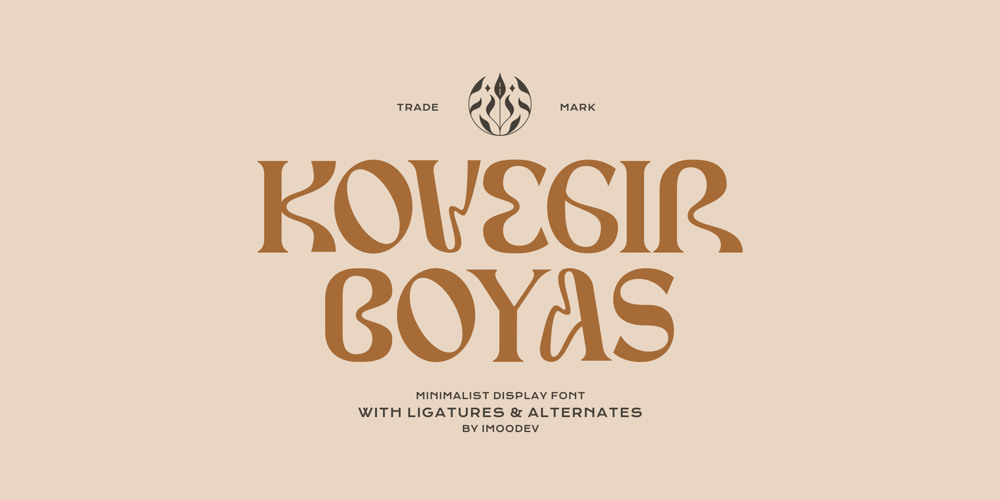
Kovegir Boyas Font Family was designed by Aulia Savira Putri and published by Imoodev. Kovegir Boyas contains 1 styles and family package options. Kovegir Boyas is a modern cursive font with visual elegance, smooth curves, and beautiful ligatures clear, making your work look true and attractive.A versatile font that works in both large and small sizes. This font is suitable for a wide variety of projects such as invitations, logos, branding, magazine, photography, card, product packaging, mugs, quotes, poster, labels, signatures, and more.